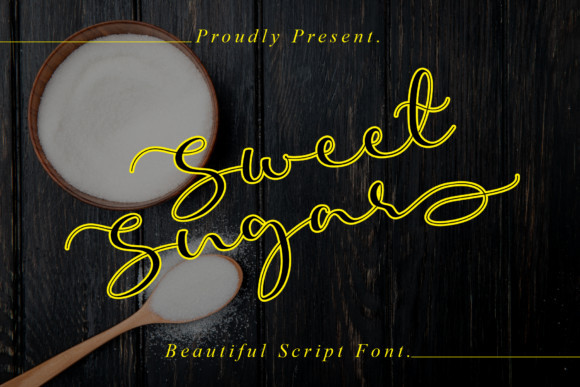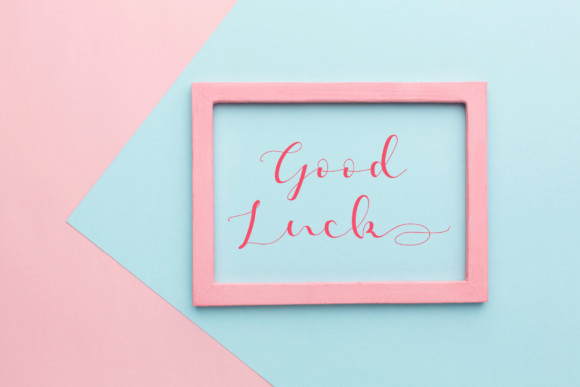
Sweet Sugar Font
Sweet Sugar FontSweet Sugar is a modern and friendly handwritten font. A little bit quirky, this font looks incredibly adept on a wide variety of contexts!